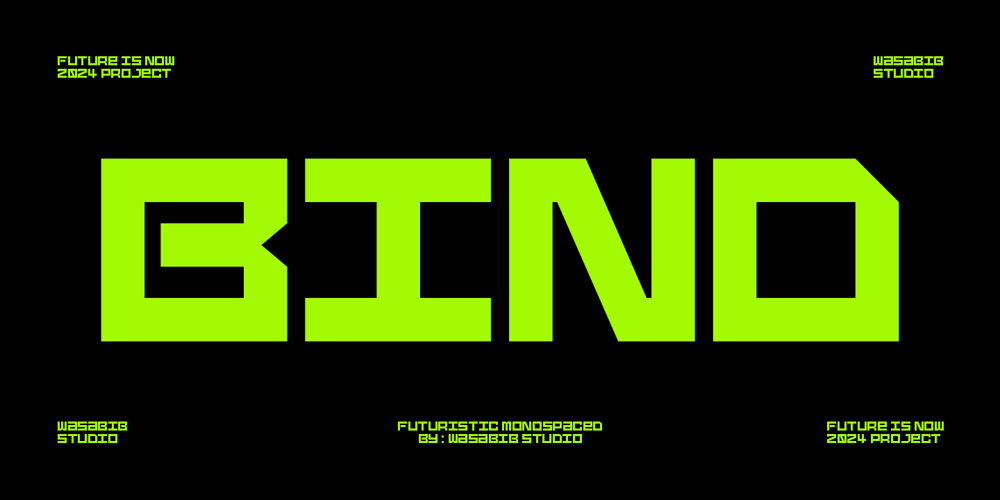
WS Bind Font Family was designed by Miftahul Habib and published by Wasabib Type Foundry. WS Bind contains 1 styles and family package options. WS BIND, This font style has a technical and futuristic look that lends itself well to modern design applications. Its sharp corners and straight lines give it a forward-looking, geometric feel, which is commonly associated with technology, science, and engineering.